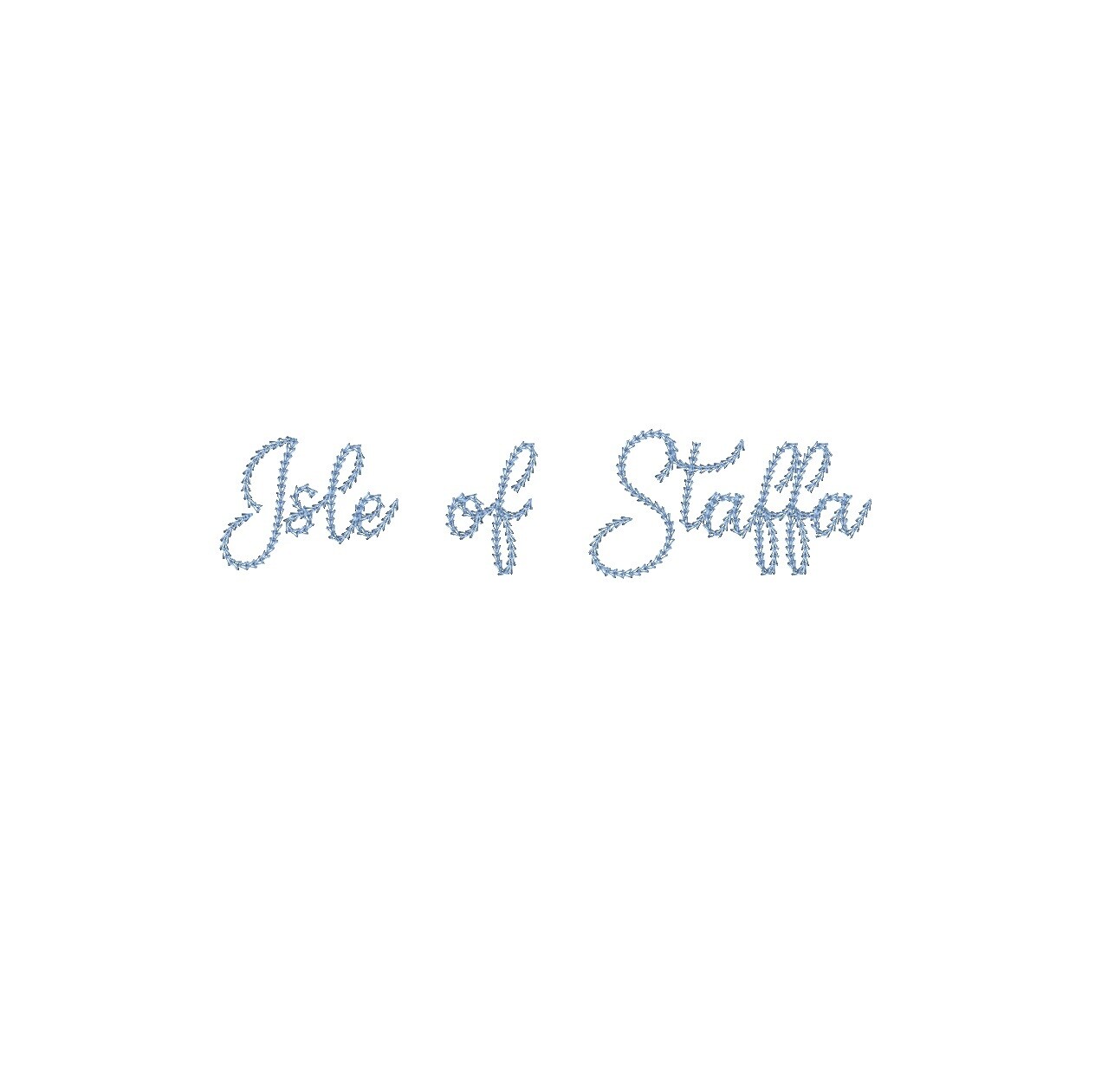
Elevate your embroidery with the Isle of Staffa Chain Stitch ESA font, compatible with Wilcom Studio e4.5.6 and Hatch 3 versions and up. This font encapsulates the mystique of Staffa's landscapes, adding a unique touch to your designs. Meticulously crafted, its chain stitch artistry weaves depth and allure into every project. Seamlessly integrate for captivating results that stand out. Isle of Staffa transforms fabric into a canvas of artistic innovation, infusing your creations with the spirit of this enchanting place. Elevate your embroidery with this seamless blend of technology and artistry. Experience the magic of Isle of Staffa Chain Stitch ESA font to redefine stitching excellence. Upgrade your designs today for a touch of captivating mystique.